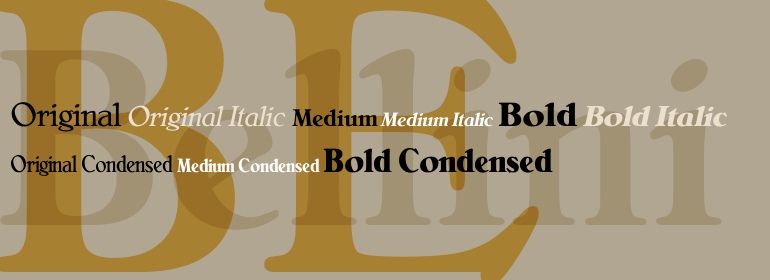
Bellini Font
Bellini Font is perfect for Italian restaurant branding, cocktail bar signage, luxury hotel marketing, elegant event invitations, upscale beverage packaging, sophisticated wine labels, romantic venue promotions, and refined hospitality establishments. This effervescent typeface excels in applications where Italian elegance and sparkling sophistication are essential for creating memorable and celebratory brand experiences that honor the art of fine living.
What makes Bellini Font truly exciting is its exquisite embodiment of Venetian sophistication and the sparkling elegance of Italy's most celebrated cocktail culture that captures the essence of refined Italian hospitality and the joyful spirit of celebration. The font features graceful letterforms with flowing curves and effervescent details that mirror the delicate bubbles of Prosecco and the artistic beauty of Venetian craftsmanship. Its celebratory personality and Italian character create an immediate sense of joy and sophisticated indulgence that resonates with audiences seeking authentic Italian luxury experiences and refined entertainment. The typeface's Venetian heritage and sparkling appeal make it perfect for brands wanting to convey celebration, elegance, and connection to the finest traditions of Italian hospitality and cocktail artistry.
The Bellini Font family includes regular and ornamental versions, complemented by Italian-inspired alternates and celebration-themed decorative elements. The font offers comprehensive character sets with beverage symbols, elegant ligatures, and Venetian styling details that enhance its sophisticated aesthetic. Additional graphic elements including bubbles, vine patterns, Italian motifs, and celebratory flourishes provide designers with complete branding tools rooted in Italian hospitality traditions and cocktail culture.